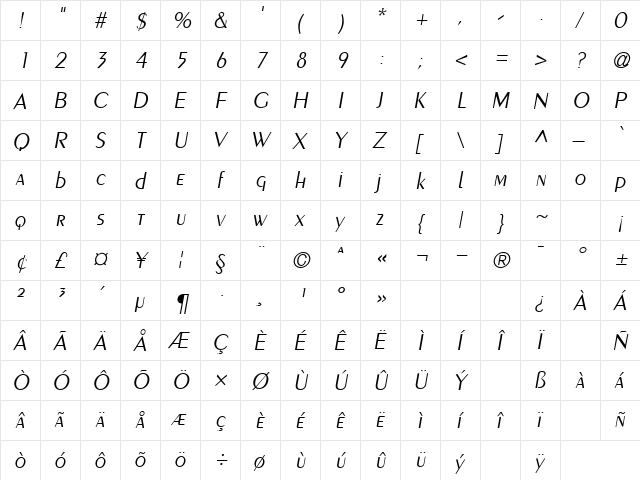
Overset Oblique Font Preview
Overset Oblique
Overset Oblique Font Details
Design Context for Overset Typeface
Overset offers clean, dependable letterforms without strong stylistic allegiance, making it a practical choice for designers who need flexibility. The slanted form adds forward momentum and visual energy.